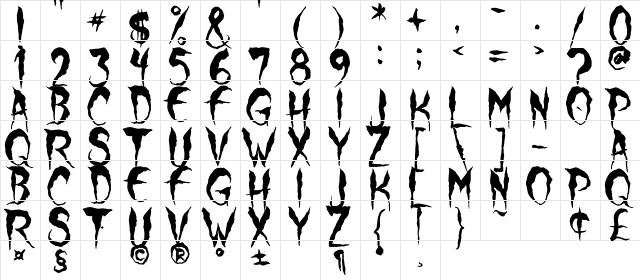
Wolf Moon Regular
Regular ·  Chad Savage ·
DesignerChad Savage
Design Context for Wolf Moon Typeface
Wolf Moon is a composed and adaptable typeface that performs quietly and consistently across a wide range of design contexts.